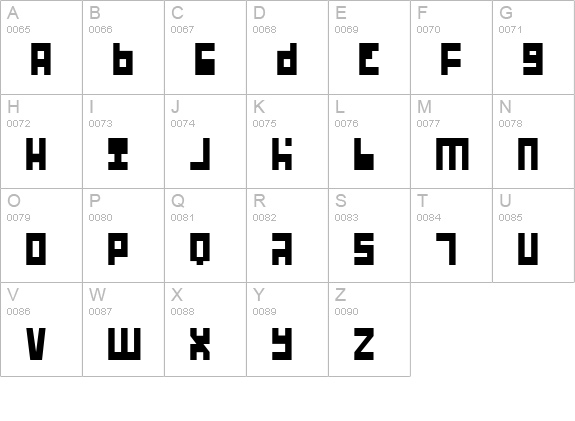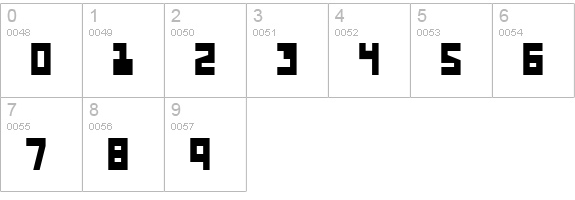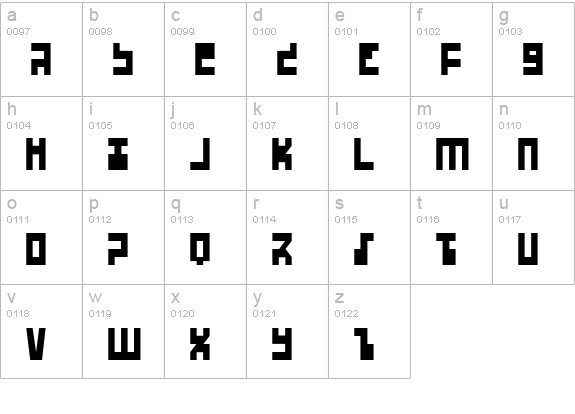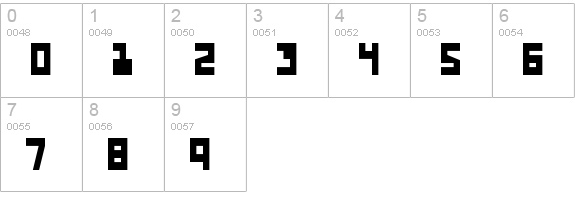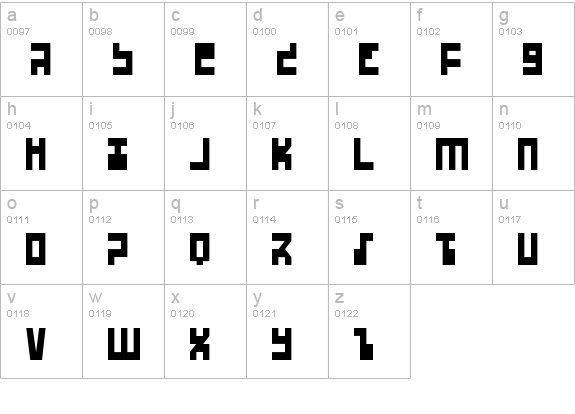
UFO Hunter font is a one-of-a-kind typeface that captures the essence of mystery and wonder. With its futuristic and extraterrestrial-inspired design, this font is perfect for projects related to sci-fi, space exploration, and all things unknown. The sleek and angular letterforms give off a sense of otherworldly intelligence, making any text stand out with a touch of cosmic intrigue. Best of all, UFO Hunter font is available for free download at FontsMarket.com. Whether you're a designer, writer, or UFO enthusiast, this font is sure to elevate your projects to new heights. Embrace the unknown and let UFO Hunter font take your creativity on an intergalactic journey.